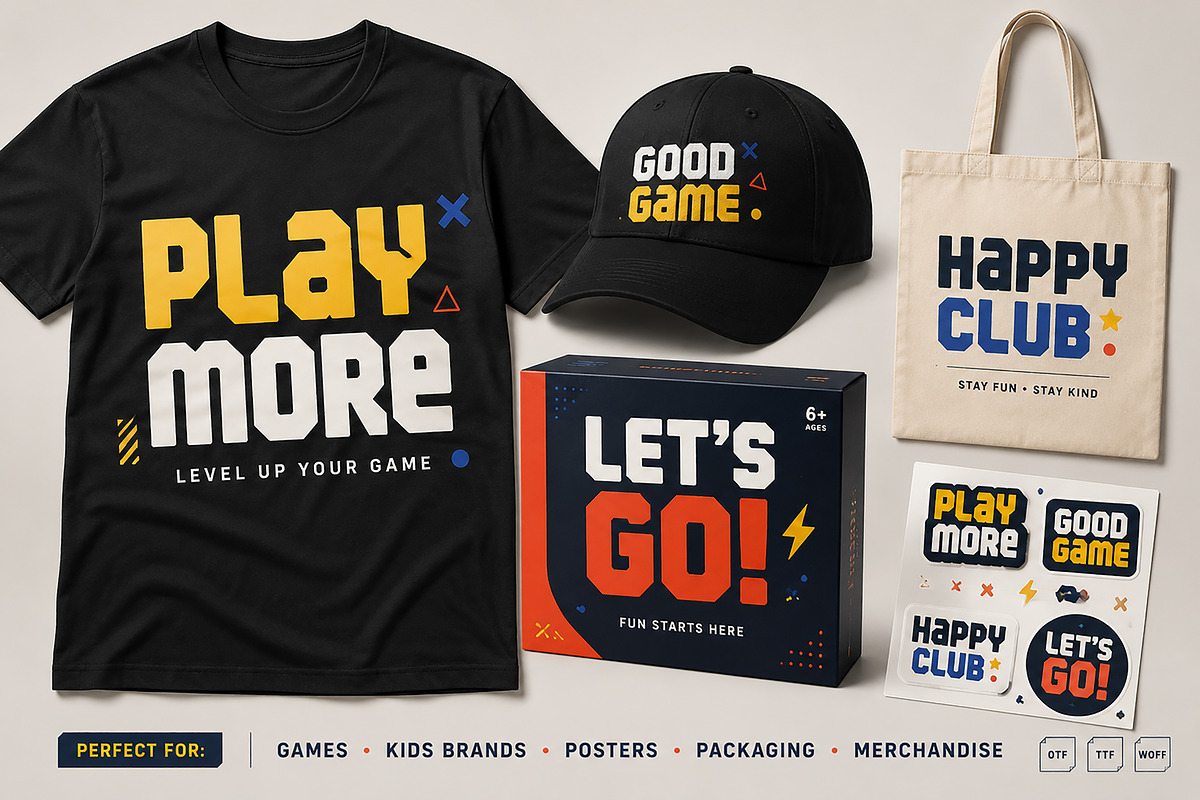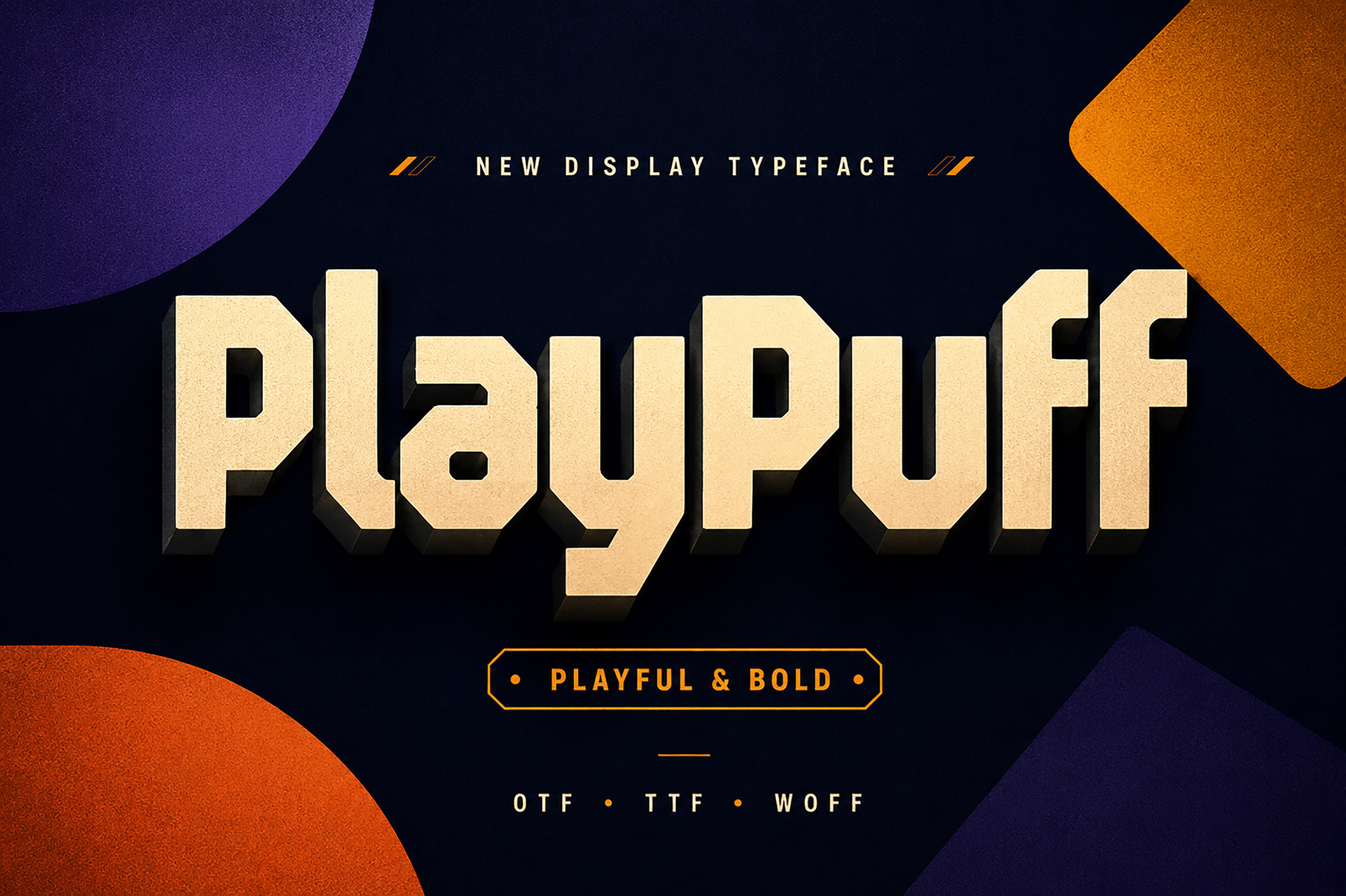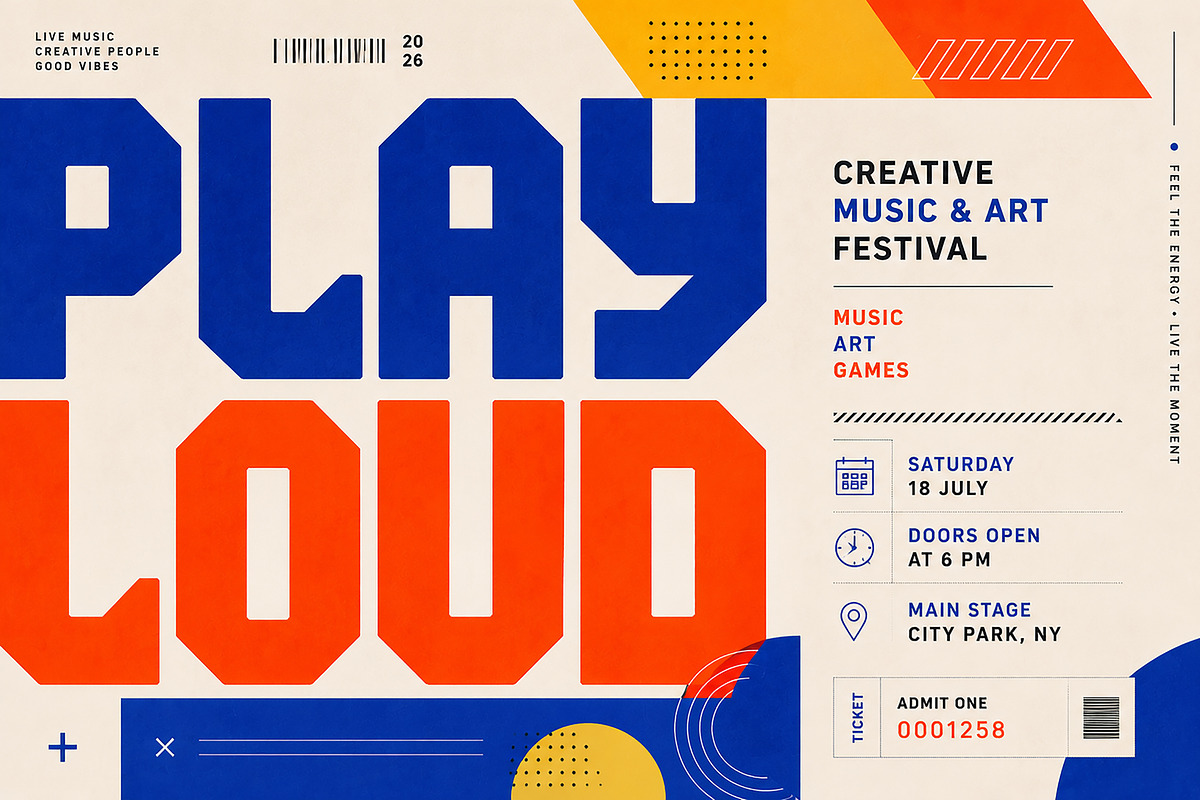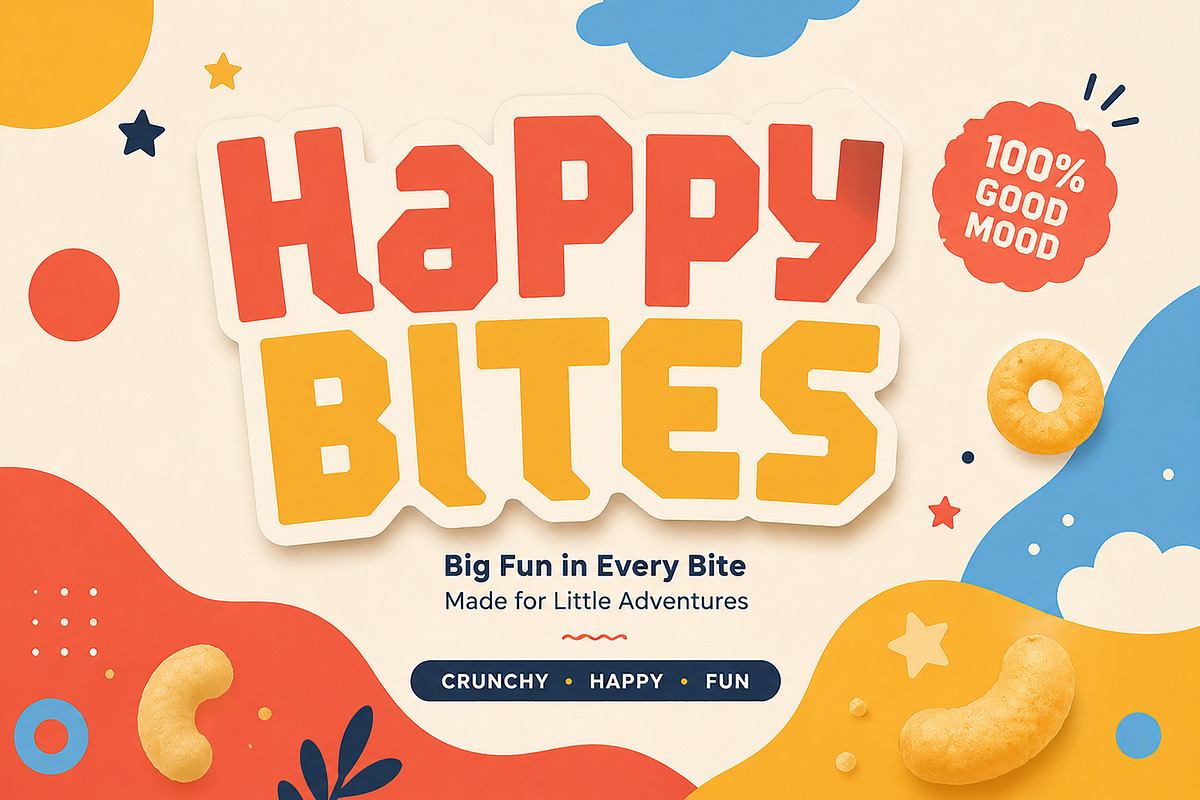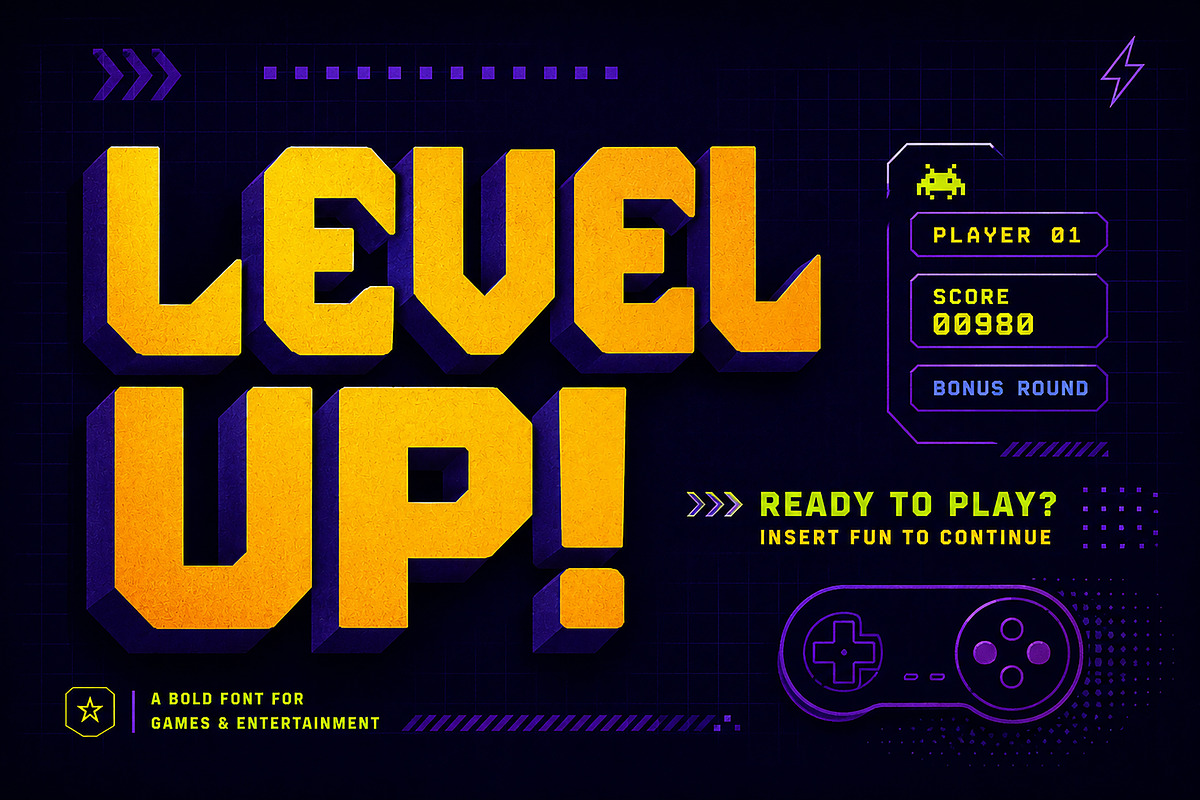
PlayPuff – Bold Playful Display Font
PlayPuff is a bold and playful display font designed to make every headline stand out with confidence and personality. Featuring chunky geometric letterforms, strong edges, and a fun modern style, this typeface is perfect for eye-catching designs that demand attention.
Whether you're creating branding for kids, gaming graphics, snack packaging, event posters, merchandise, or social media content, PlayPuff brings a fresh, energetic, and friendly look to every project. Its bold structure ensures excellent readability while maintaining a unique and memorable character.
Designed for designers, creators, and brands looking for a fun yet professional display font, PlayPuff is the perfect choice for creative projects that need a modern playful touch.
Kids Branding
Game Titles
Mobile Games
Snack & Food Packaging
Toy Packaging
Posters
Festival Graphics
Social Media
T-Shirt Design
Stickers
YouTube Thumbnails
Creative Advertising
Bold Display Font
Modern Playful Style
Clean Geometric Letterforms
Easy to Read